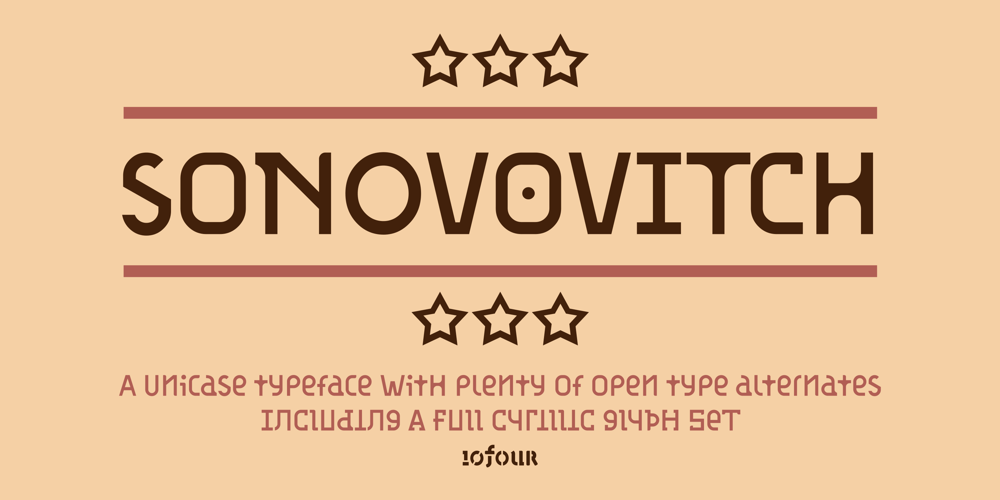
sonovovitch Font Family was designed by Matt Heximer and published by 10four. sonovovitch contains 1 styles and family package options. Sonovovitch is a unicase display typeface inspired by the Russian Constructivist movement and Soviet Cold War era propaganda. Although a faux Russian font, Sonovovitch has language support for the true Cyrillic alphabet. Originally intended as an exercise in downsizing the typical font’s character set, Sonovovitch quickly expanded in the opposite direction, adding multiple variations for letterforms and utilizing Open Type features allowing for easy substitution of glyphs… creating plenty of variety for letter combinations. Open Type “Titling Alternates” even substitute completely foreign glyphs, never seen before in any language, allowing for totally alien typesetting. The results found in Sonovovitch are packed with bold character and eastern European influenced flair. Sonovovitch’s eclectic geometric forms lend itself to a multitude of graphic applications; from serious branding programmes, to light-hearted packaging, to sports jerseys, to hand-crafted DIY projects.